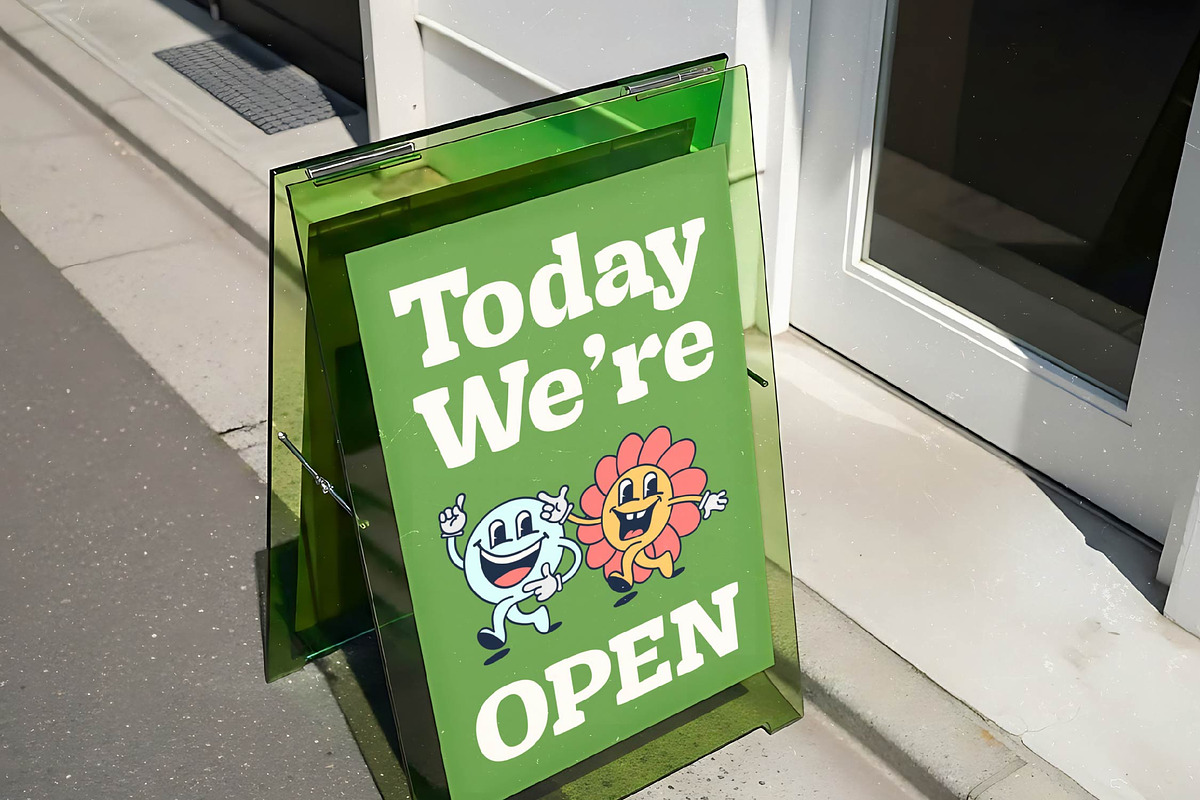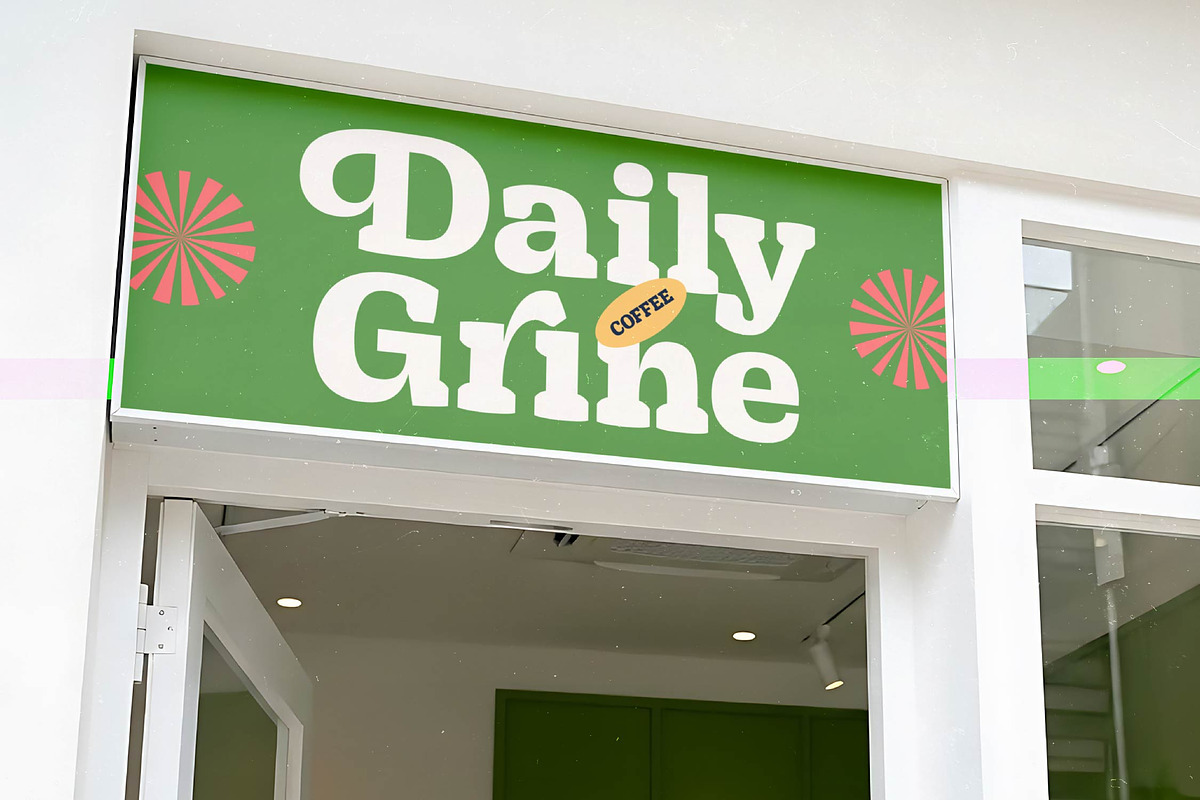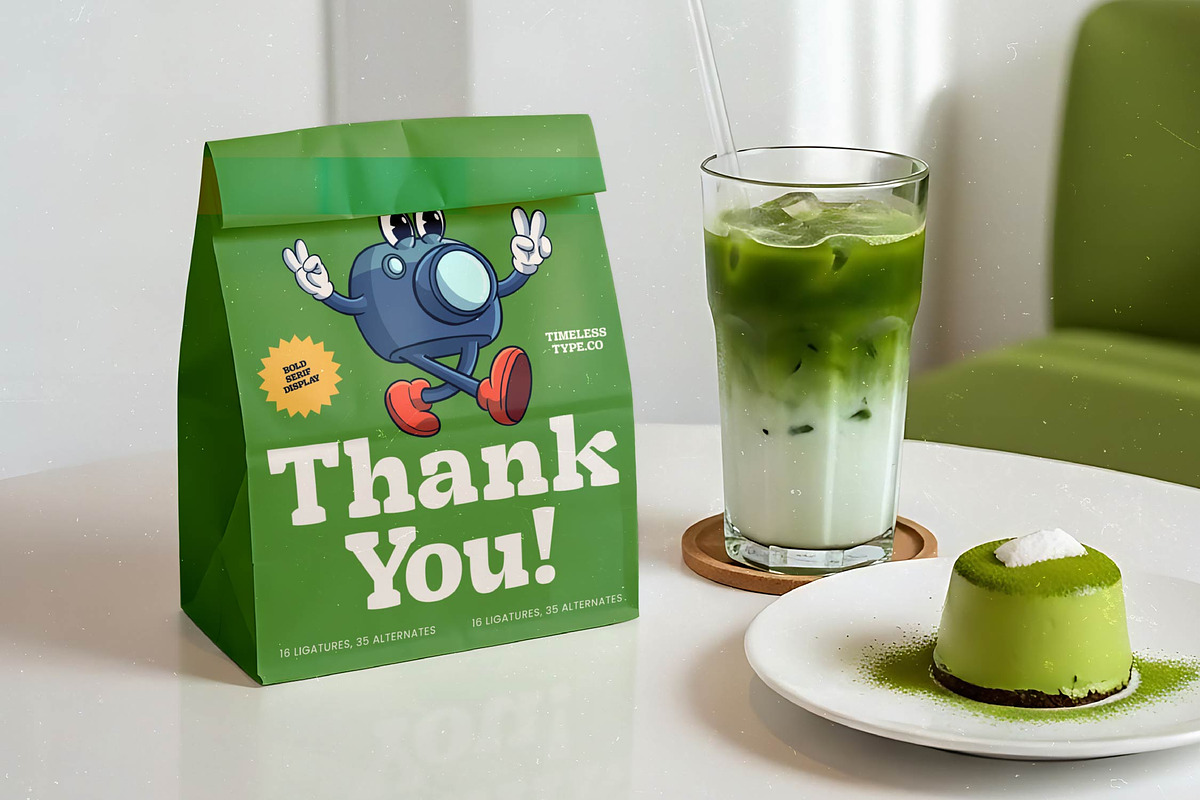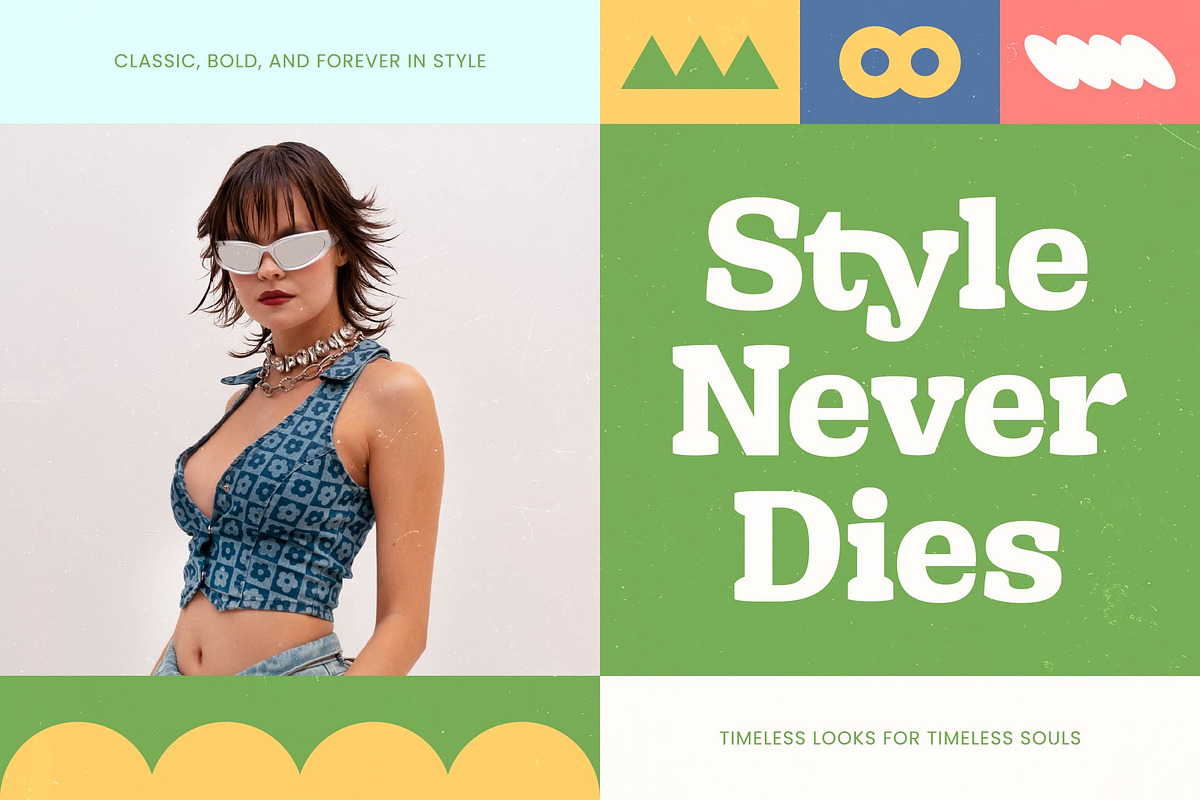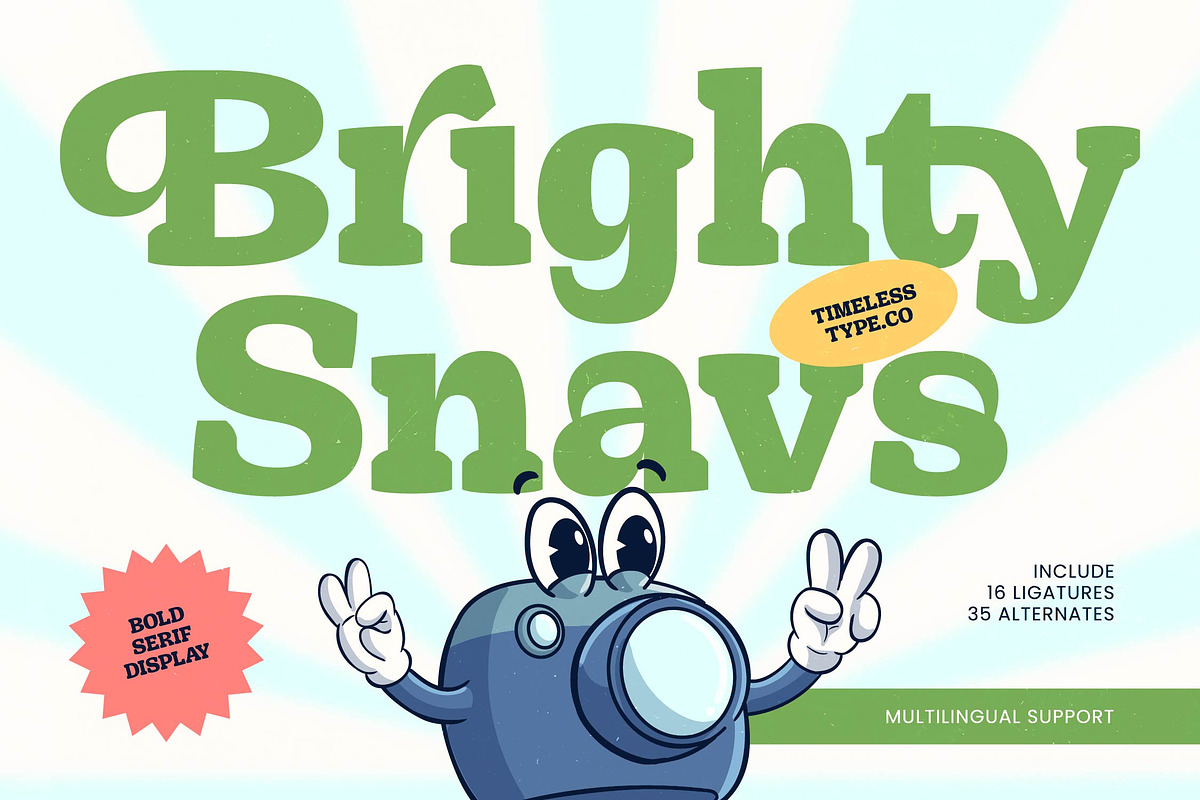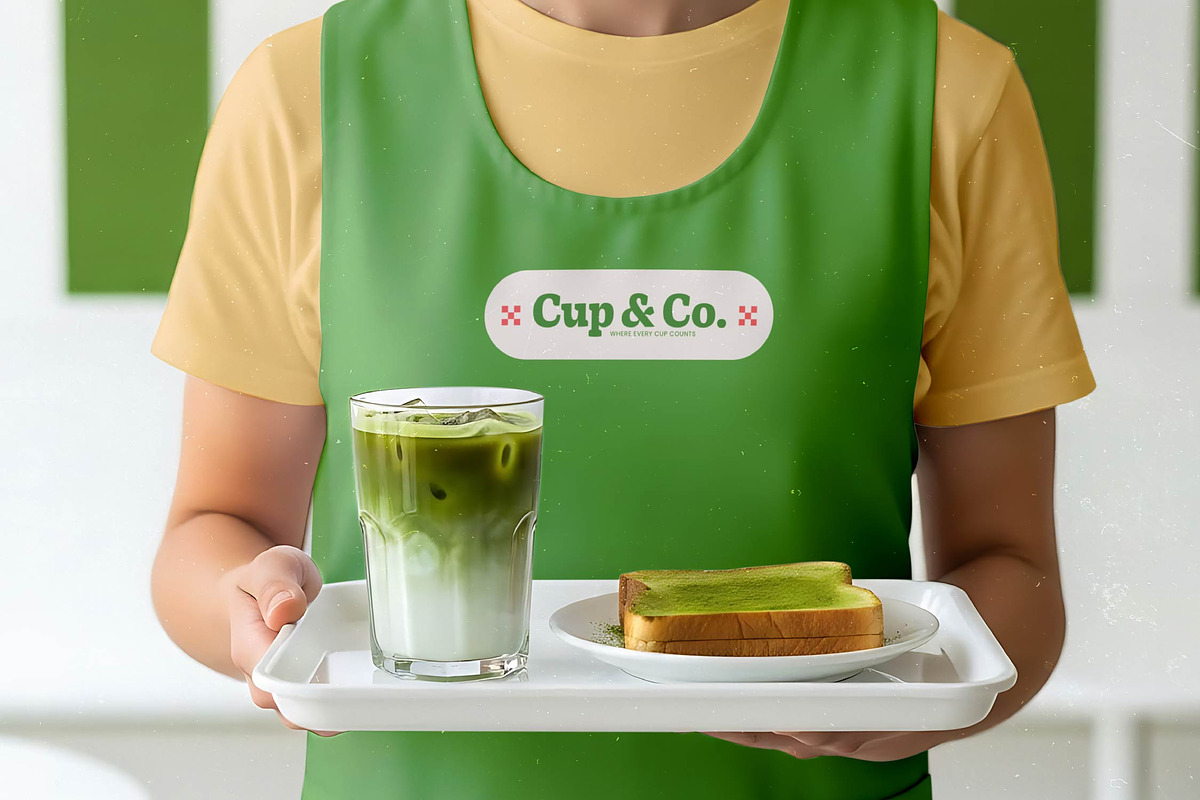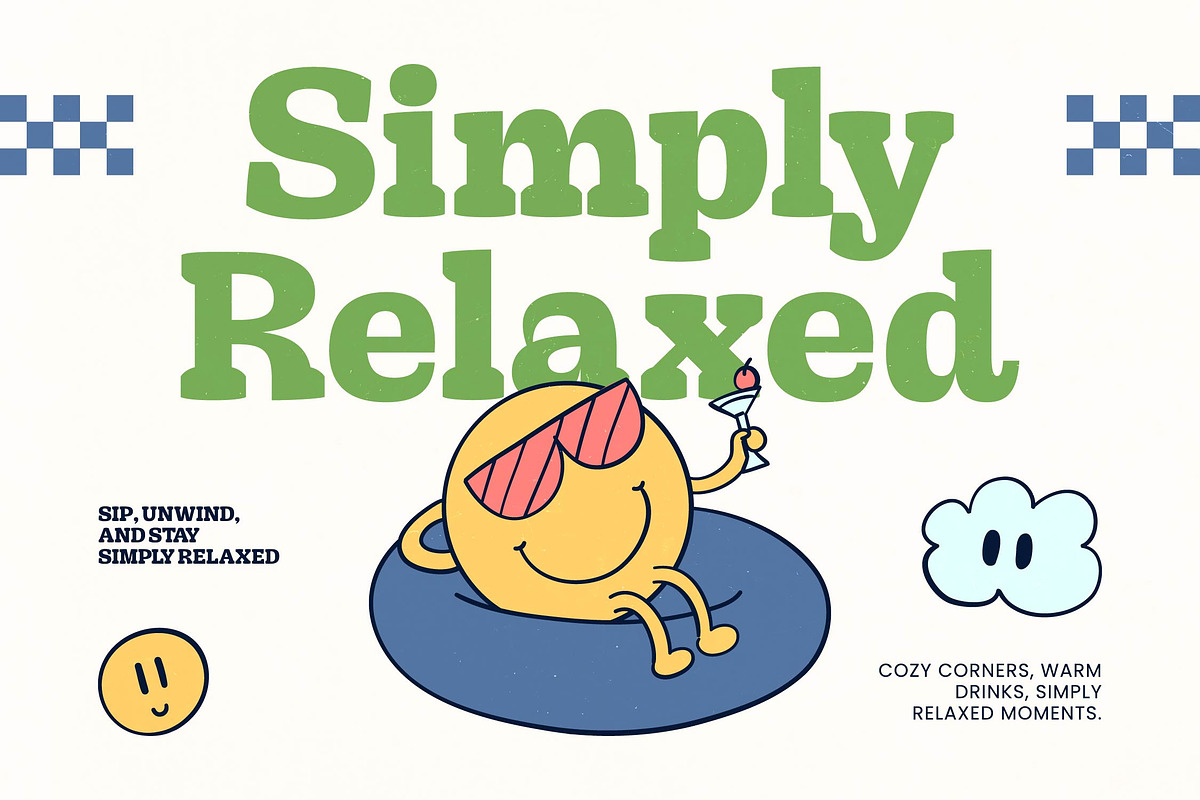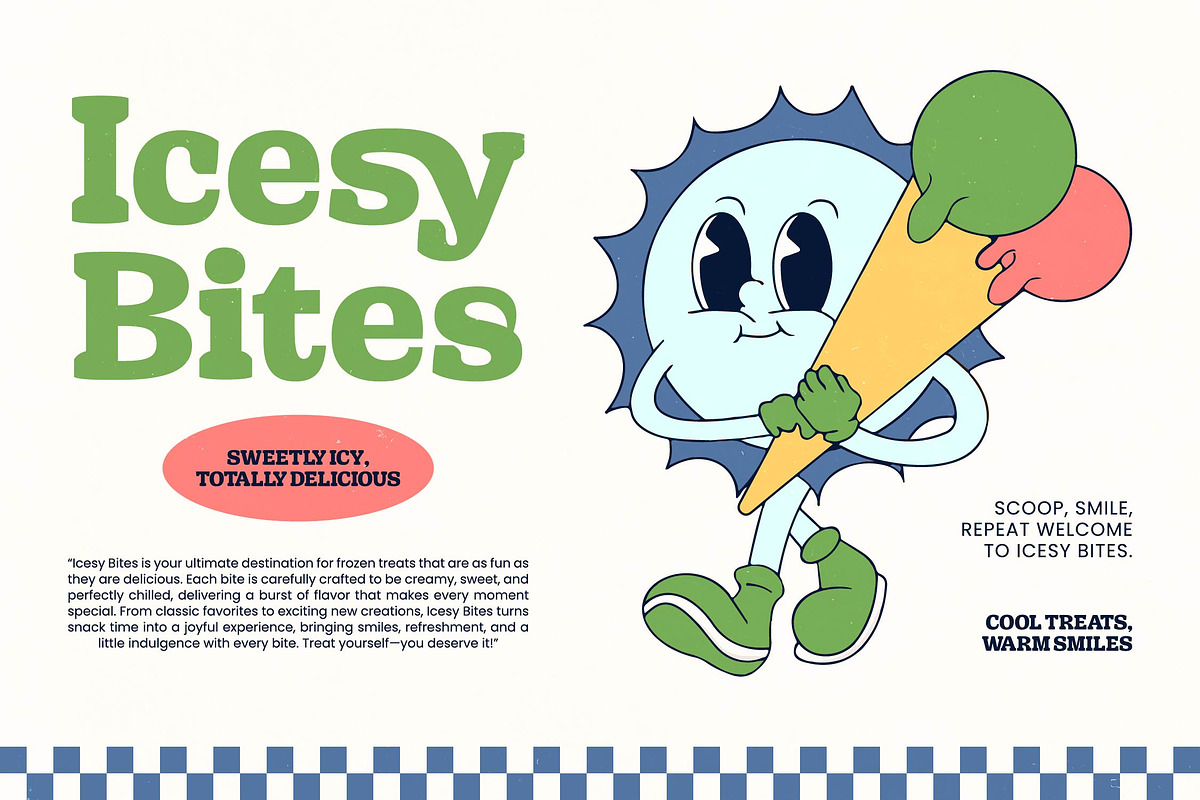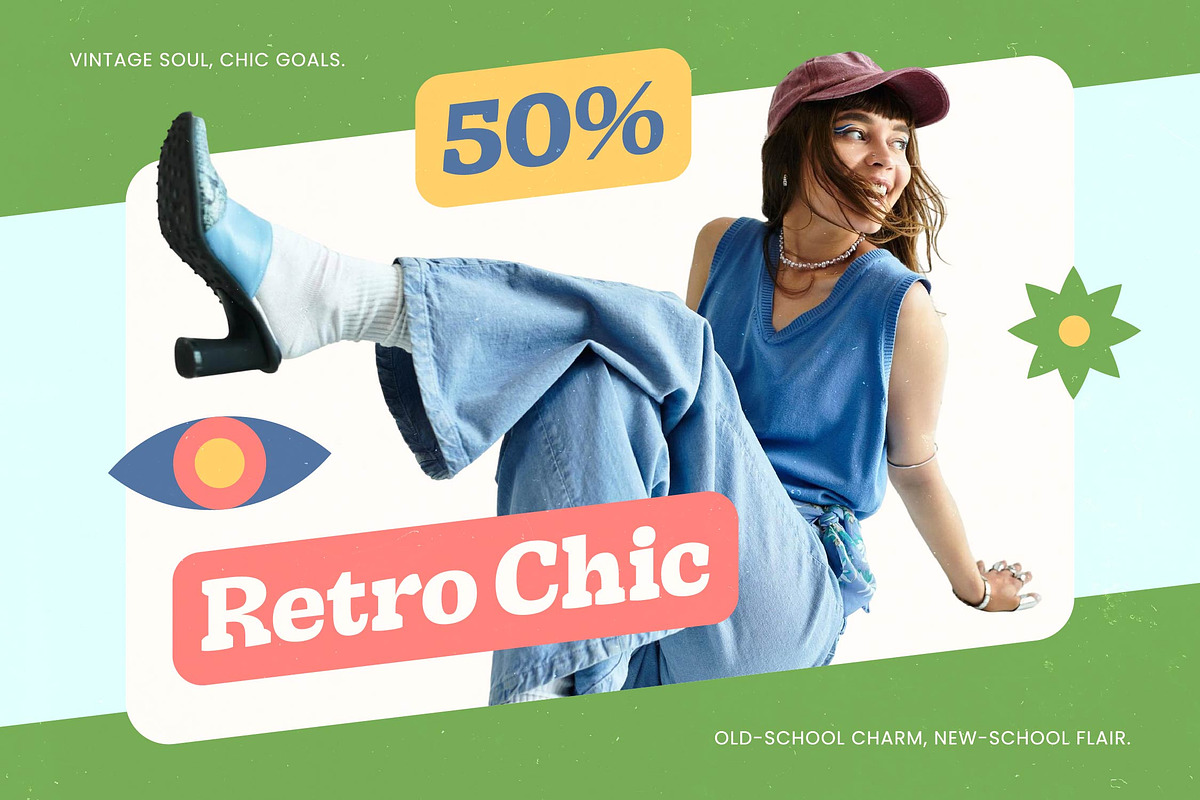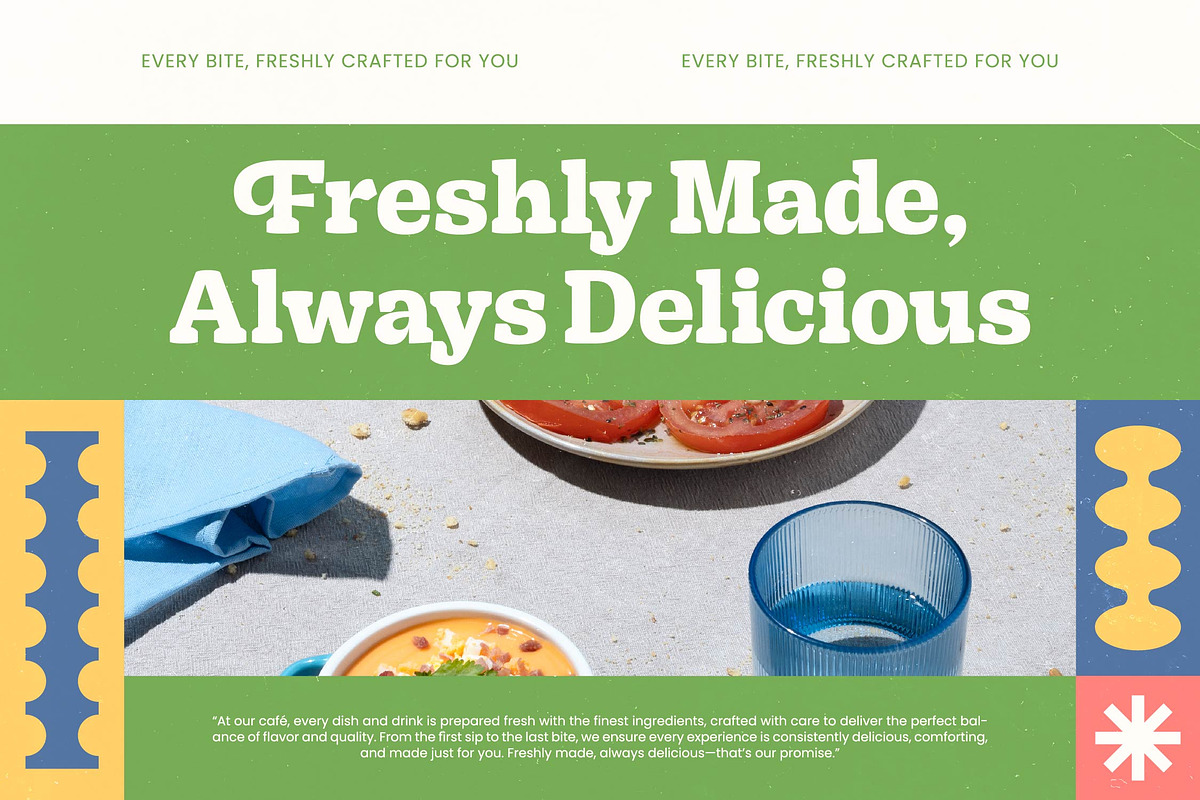
Brighty Snavs Bold Serif Display
Brighty Snavs – Bold Serif Display , Elevate your brand’s visual presence with a typeface that commands immediate attention and radiates character. Brighty Snavs – Bold Serif Display is a masterfully crafted font that bridges the gap between retro-inspired charm and modern sophistication. Its thick, confident strokes and high-impact design make it a standout choice for designers looking to infuse their work with a sense of personality and warmth. Whether you are aiming for a nostalgic aesthetic or a contemporary bold look, Brighty Snavs – Bold Serif Display delivers a visually striking presence that ensures your message is never overlooked in a competitive marketplace.
Experience unparalleled creative flexibility with a font built for high-end customization and professional polish. Featuring 16 ligatures and 35 alternates, Brighty Snavs – Bold Serif Display allows you to create unique typographic compositions that feel bespoke and hand-tailored. These curated alternates offer endless possibilities for fine-tuning headlines, making it easier than ever to achieve a perfectly balanced and dynamic layout. By integrating Brighty Snavs – Bold Serif Display into your creative workflow, you gain access to a versatile design tool that empowers you to push the boundaries of traditional display typography with ease.
Expand your creative reach across international borders without sacrificing aesthetic integrity or brand consistency. With its extensive multilingual support, Brighty Snavs – Bold Serif Display adapts seamlessly across global markets, making it incredibly versatile for international projects. This ensures that your brand voice remains consistent and professional, regardless of the language or geographic region. By choosing Brighty Snavs – Bold Serif Display, you are investing in a global-ready typeface that communicates effectively with diverse audiences while maintaining its bold personality and superior readability across a wide array of character sets.
Unlock the full potential of your next project with a font designed for maximum versatility and commercial success. Brighty Snavs – Bold Serif Display is the ideal application for luxury branding, packaging, and editorial design. It is also perfect for high-end magazine spreads, identity systems, and premium merchandise that requires a touch of bold elegance. Whether you are designing for a boutique lifestyle brand or a large-scale advertising campaign, Brighty Snavs – Bold Serif Display provides the professional edge needed to differentiate your work and leave a lasting impression on your target audience.